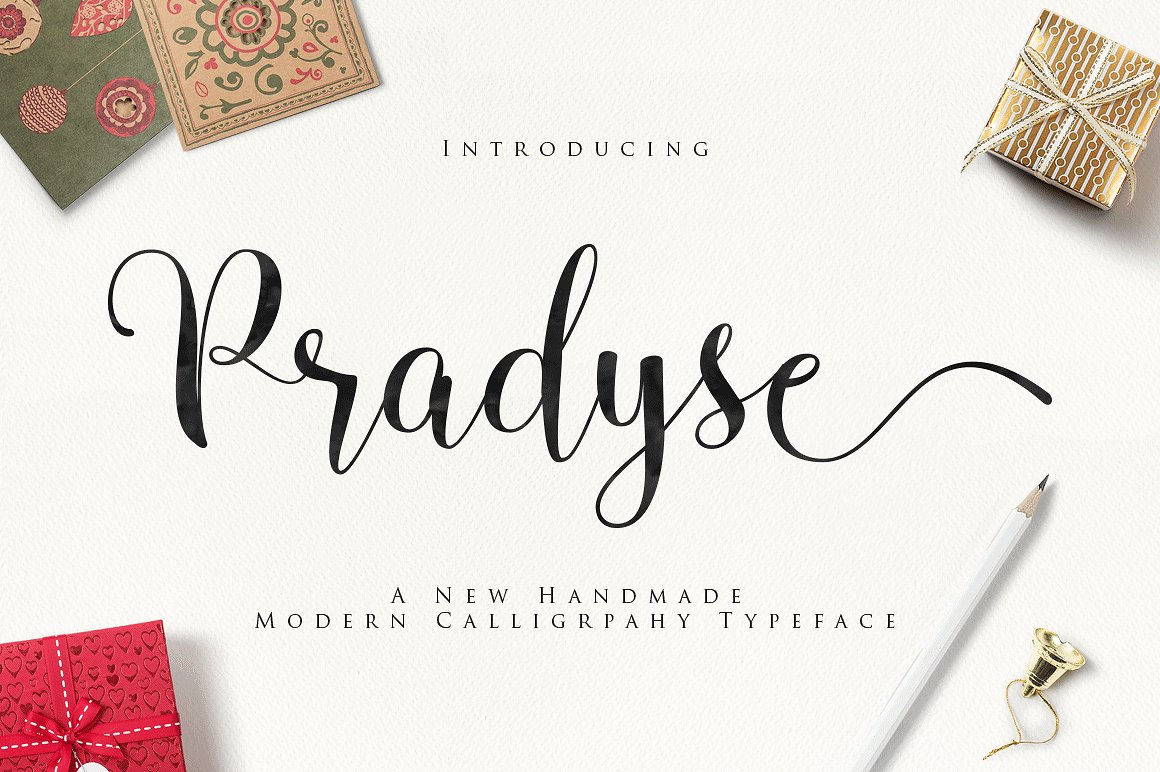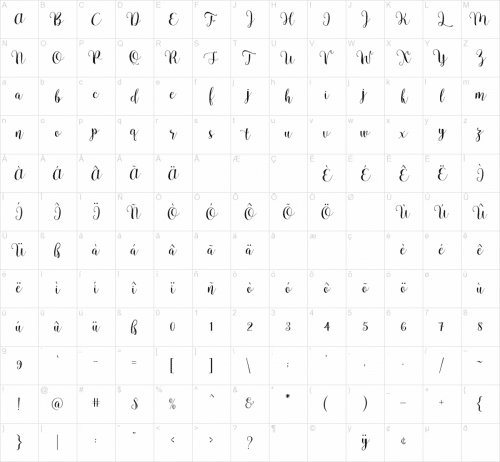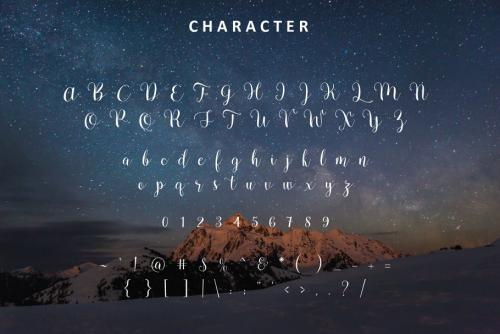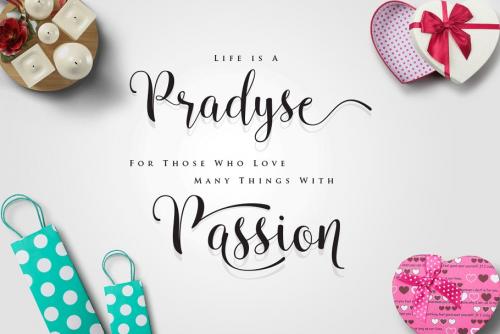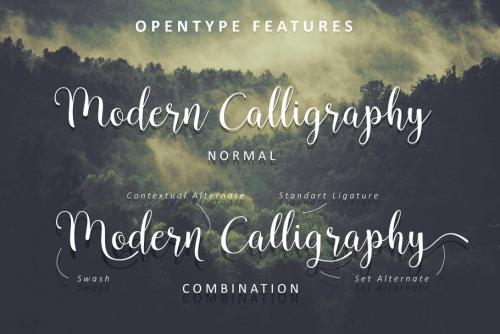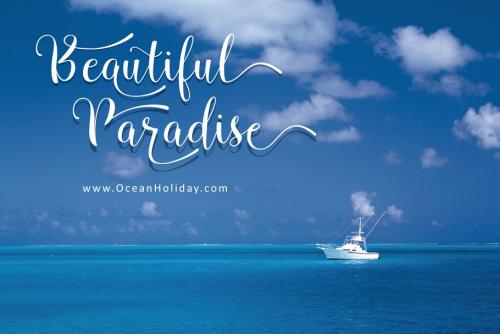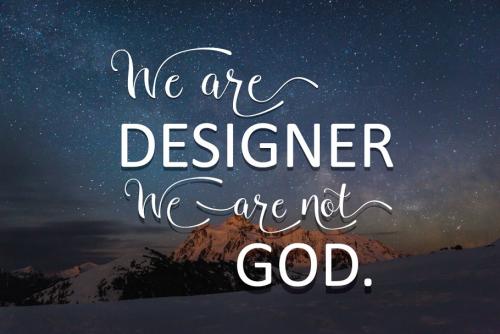
Pradyse Script is a new handmade modern calligraphy Typeface Fonts, combines from copperplate to contemporary typeface, classic and elegant touch.
Pradyse Script features 334 glyphs and 153 alternate character contain with opentype features. Contextual Alternates, Standart Ligature and more.You can access all those alternate characters by using OpenType savvy programs such as Adobe Illustrator, Adobe InDesign and CorelDraw X6-X7.